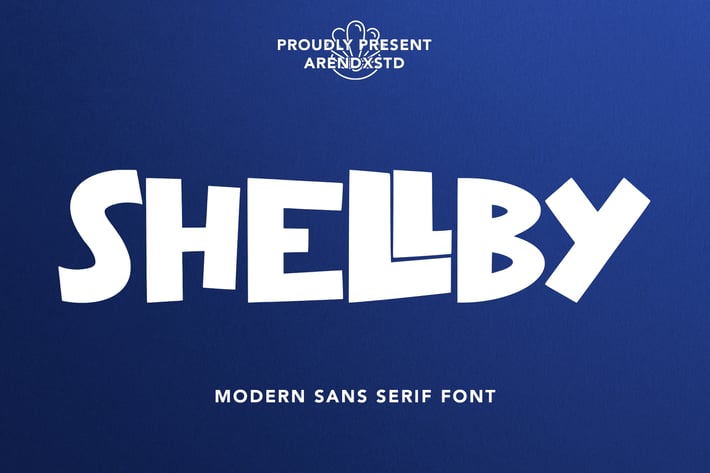
Shellby - Modern Sans Serif Font
Introducing a Shellby - Modern Sans Serif Font with sharp and beautiful letters that create fonts that are modern, trendy and elegant. Wayfaring came with opentype features such stylistic alternates, stylistic sets & amp; amp; ligatures good for logotype, poster, badge, book cover, tshirt design, packaging and any more.